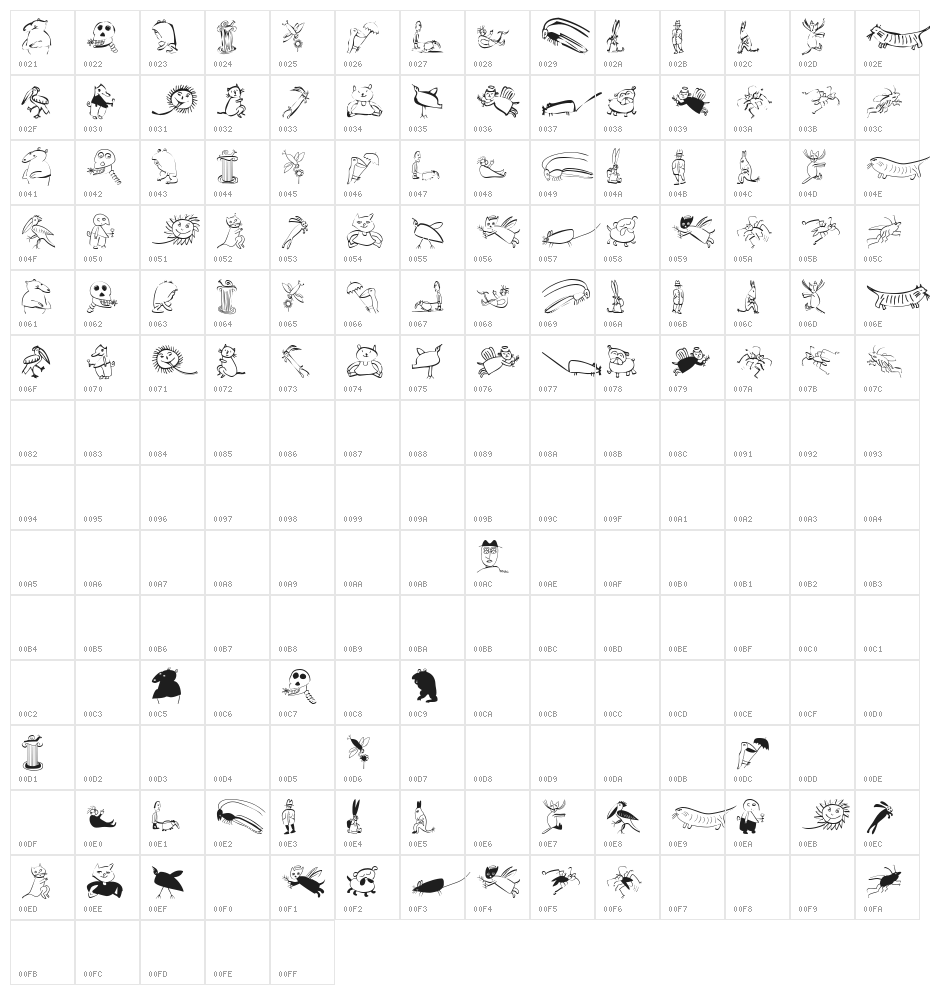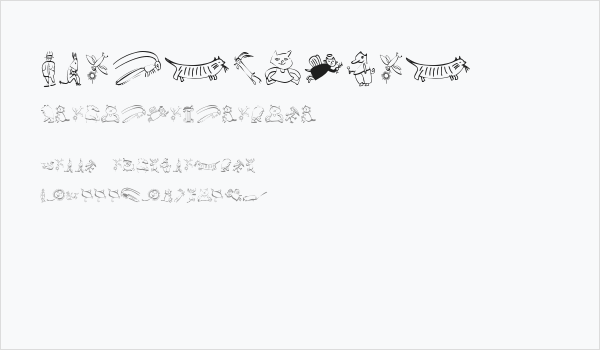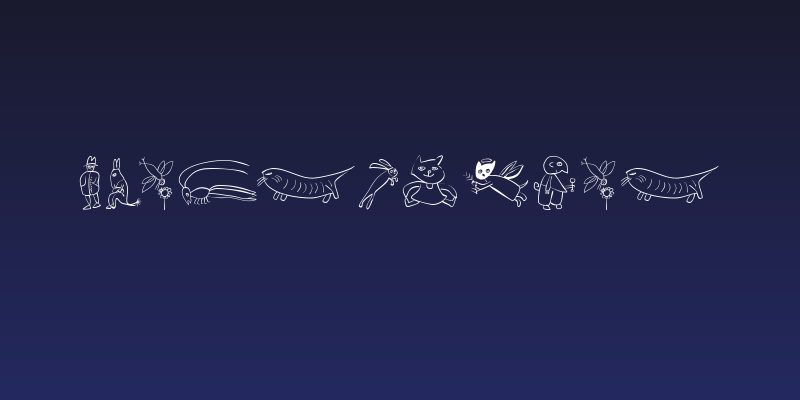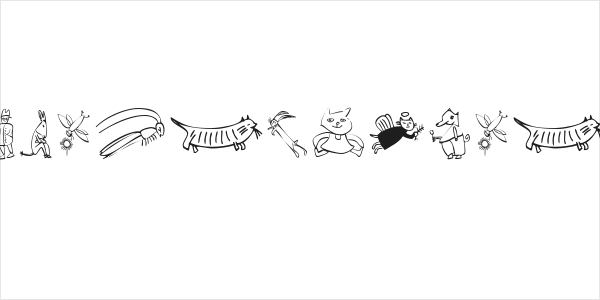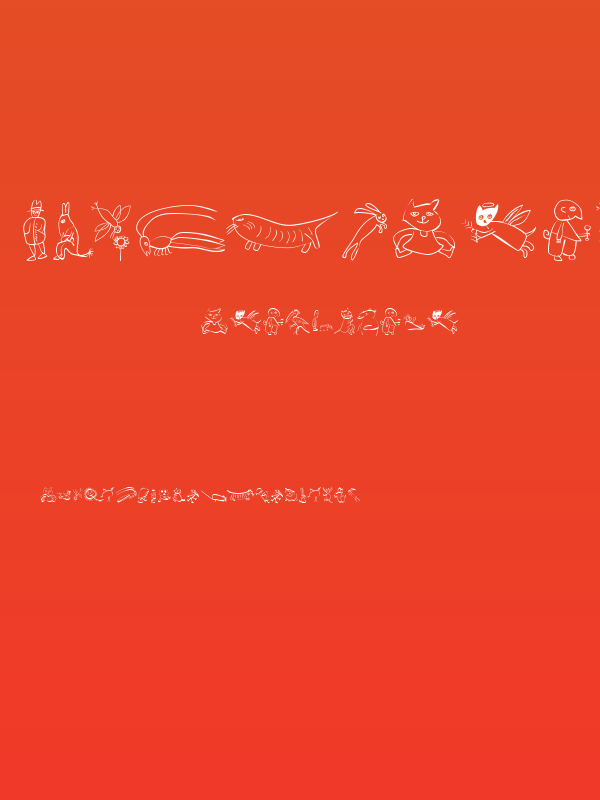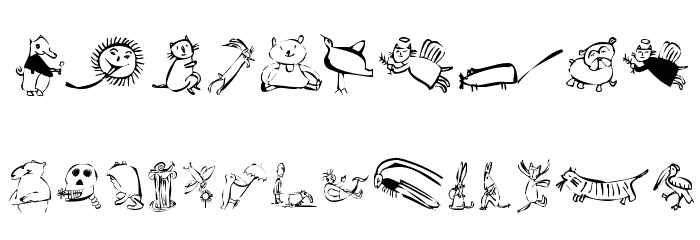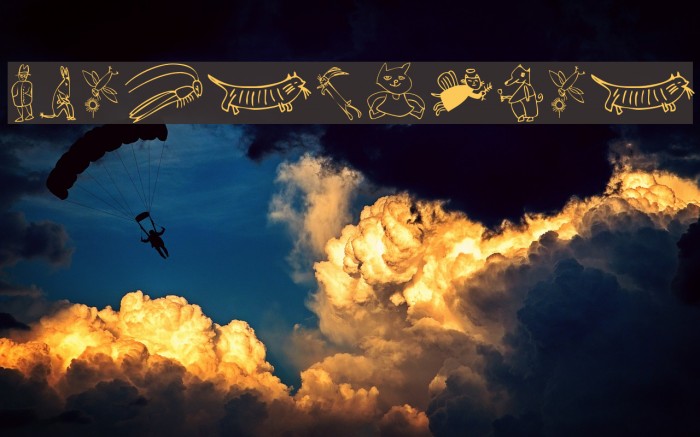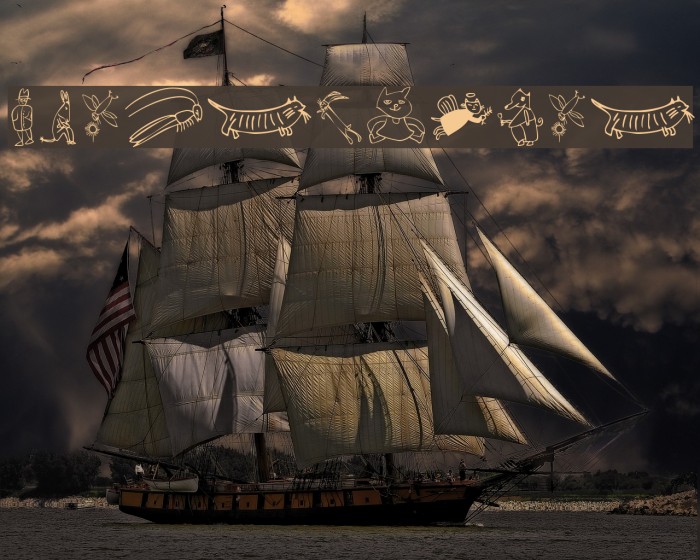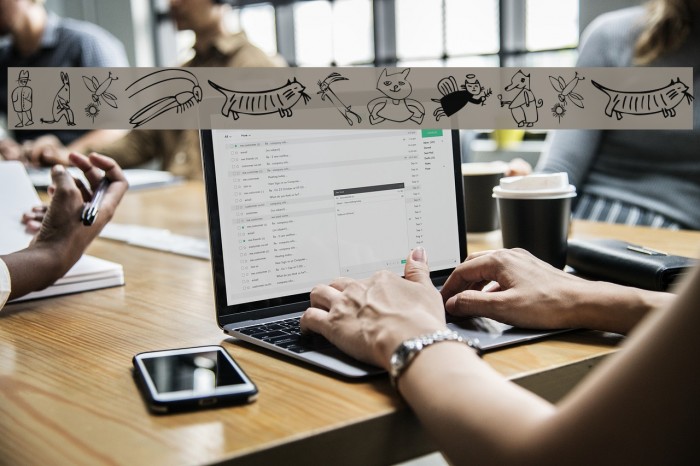
KleinsTypen Font
KleinsTypen Description
This collection features a whimsical and playful set of characters, each designed with a unique and imaginative style. The illustrations are reminiscent of doodles, with a hand-drawn aesthetic that adds a sense of charm and creativity. Each character is distinct, ranging from animals to abstract figures, all crafted with a light-hearted and humorous touch. The line work is varied, with some characters having bold outlines while others are more delicate, creating an engaging visual contrast. This set is perfect for projects that require a fun and artistic flair, offering a wide range of expressive and entertaining designs.
| Overall Style | Playful, Artistic |
| Use Case | Illustrations, Decorative elements |
| Proposed Projects | Ideal for children's books, playful branding, creative posters, and unique greeting cards. |